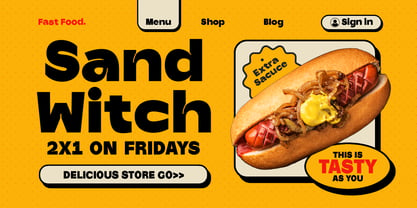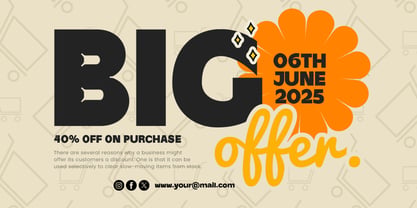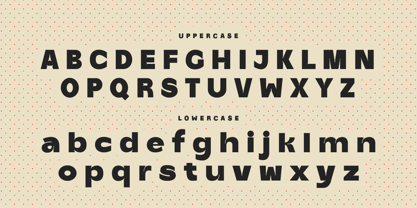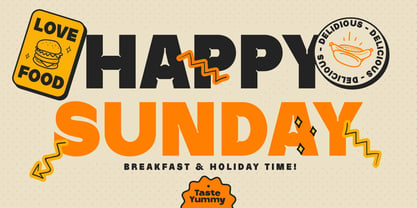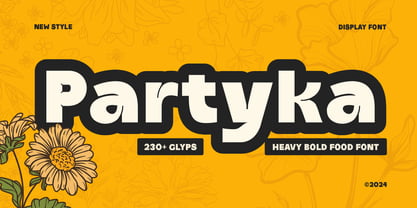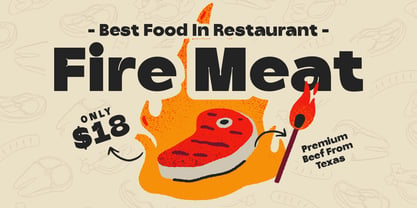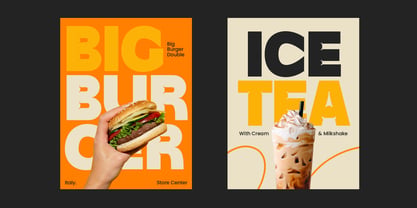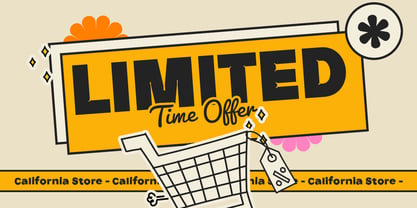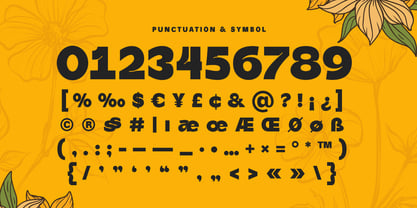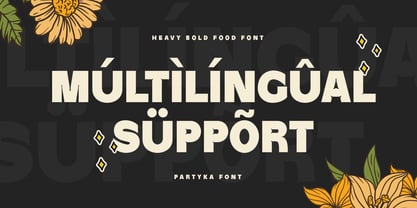
Partyka
by Sensatype Studio
The Partyka Font Family was designed by Zamroni Hamzah and published by Sensatype Studio. Partyka contains 2 styles and family package options. More about this family
Introducing Partyka, a bold display font designed to make your food and beverage branding irresistible. Perfect for menus, restaurant signage, and culinary branding, Partyka ensures your designs stand out with a touch of elegance and flair.
The Story Behind Partyka:
Partyka was inspired by the vibrant and diverse world of culinary arts. Imagine the bustling kitchens, the colorful dishes, and the lively atmosphere of your favorite restaurant. This font captures that energy and transforms it into bold, eye-catching characters that make any food-related design pop. Partyka is ideal for designers looking to create modern and stylish branding materials that appeal to food lovers and connoisseurs alike.
Partyka Font Features:
• Bold Design: Strong and impactful, perfect for display and branding use.
• Culinary Flair: Designed with food and beverage branding in mind, adding a gourmet touch to your projects.
• Versatile Usage: Ideal for menus, restaurant signage, packaging, and promotional materials.
• High Legibility: Clear and readable, ensuring your message is communicated effectively.
• Stylish Characters: Unique and elegant letterforms that add personality to your designs.
Perfect For:
• Menus and Signage: Create eye-catching menus and restaurant signage that attract customers.
• Branding: Develop cohesive and stylish branding materials for cafes, bistros, and gourmet markets.
• Packaging: Design elegant and appealing packaging for food and beverage products.
• Promotional Materials: Enhance flyers, brochures, and advertisements with a bold and modern touch.
With Partyka, your food and beverage designs will capture attention and leave a lasting impression. Whether you're creating menus, branding materials, or packaging, Partyka provides the perfect blend of boldness and culinary elegance. Elevate your culinary branding with Partyka and make your designs as irresistible as the dishes they represent.
Designers: Zamroni Hamzah
Foundry: Sensatype Studio